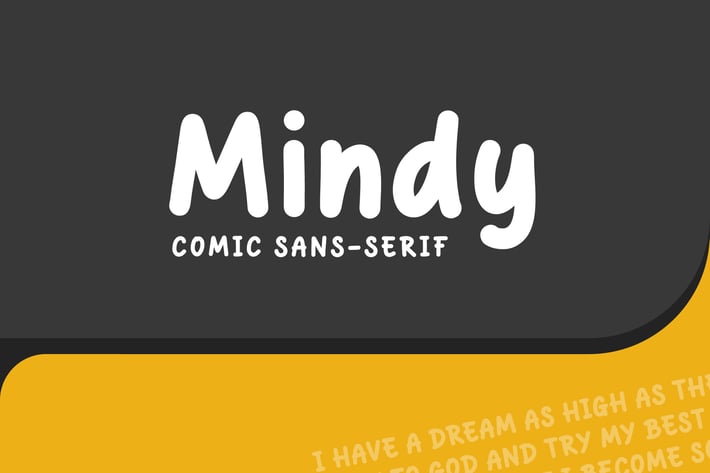
Mindy - Bold Comic Sans Serif Font
Hello! MINDY is a comic display font with rounded and bold style.
Mindy can be used in any works such as book title, comic book, school, kindergarten, story book, kids’ stuff brand, children book, poster, advertisement, social media content, logo and many more.